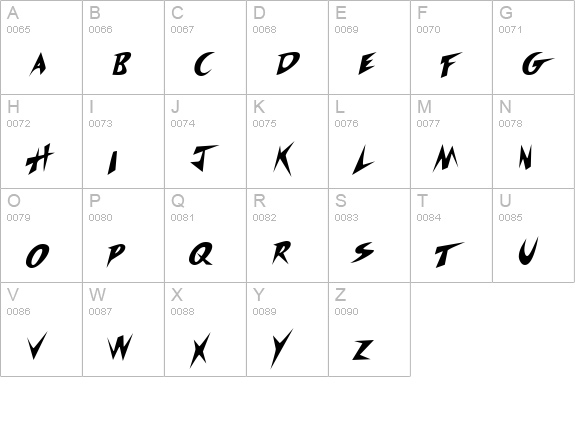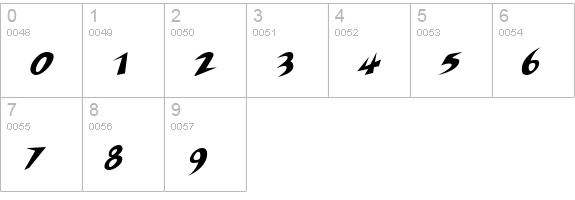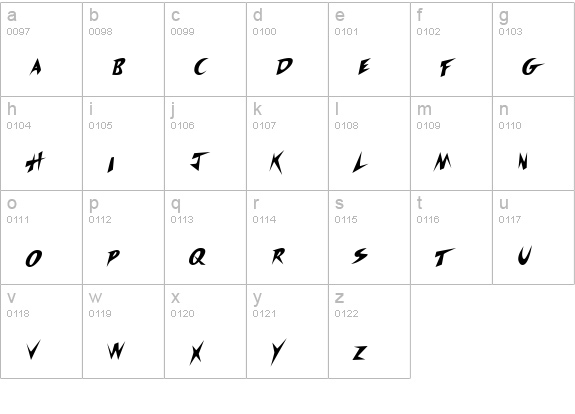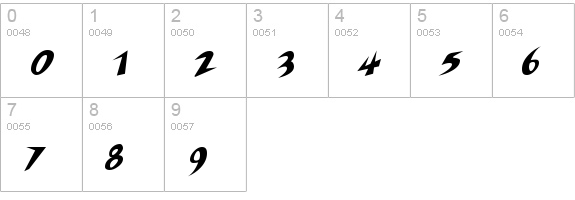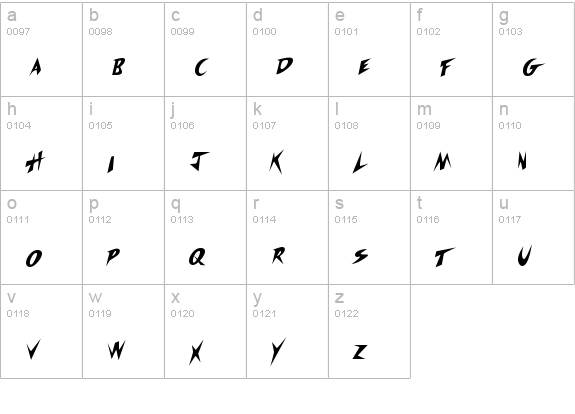
SLTitanes Font Details
Introducing SLTitanes, a bold and powerful font that exudes strength and determination. With its sturdy and commanding letterforms, SLTitanes is perfect for making a statement in any design project. This font's strong presence is complemented by its sleek and modern style. Its clean lines and sharp edges give it a contemporary feel, making it ideal for logos, headlines, and other prominent design elements. Whether you're creating a striking poster, a captivating website, or a standout branding campaign, SLTitanes will add that extra touch of boldness that sets your work apart. But what truly sets SLTitanes apart is its availability, completely free of charge. Yes, you read that right - this remarkable font is freely available to download at FontsMarket.com. We believe that creativity should never be limited by financial constraints, and that's why we are proud to offer SLTitanes as a free resource for designers, entrepreneurs, and artists alike. So go ahead and unleash your creativity with SLTitanes. Download it today and watch as your designs come to life with its commanding presence and stylish elegance. Whether you're designing for print or digital media, SLTitanes is sure to make a lasting impression. Get ready to conquer the design world with this incredible font, and remember, it's all yours, free of charge, at FontsMarket.com.